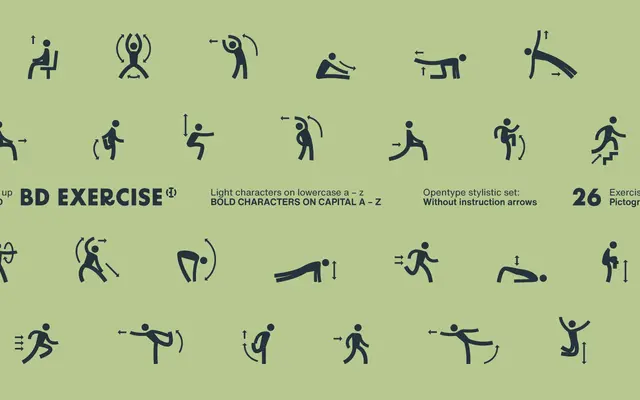
BD Exercise
Type Different · 2023
A dingbat font of 26 exercise pictographs mapped to alphabetic keys, available in light and bold weights across lowercase and uppercase respectively.
Each of the 26 characters maps to a different exercise illustration, with light-weight figures assigned to lowercase letters and bold-weight figures to capitals. A stylistic set strips the instructional arrows from the pictographs for a cleaner look. The single font file effectively delivers two visual weights through case differentiation rather than separate files.
BD Exercise is a dingbat or pictographic font consisting entirely of exercise illustrations mapped to alphabetic characters rather than conventional letterforms, placing it firmly in the display/symbol category.